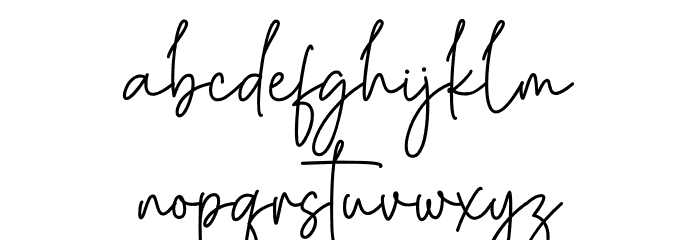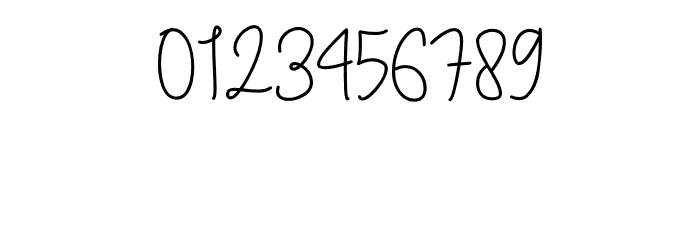
Beauty Andellia Font
This font features a delicate and flowing script style with a handwritten appearance. The uppercase letters are tall and elegant, with a slight slant that adds a sense of movement and grace. The lowercase letters are more compact, maintaining the same fluidity and charm. The numerals are consistent with the overall style, offering a cohesive look. This font's thin strokes and airy design make it ideal for projects that require a personal touch or an artistic flair. The special characters are seamlessly integrated, enhancing its versatility.
A graceful, handwritten script font with a flowing and elegant style.
- Font: Beauty Andellia
- Proposed Projects: Ideal for wedding invitations, greeting cards, personal branding, and artistic projects.
- Overall Style: Elegant, Artistic
- Use Case: Logos, Invitations, Personal Branding